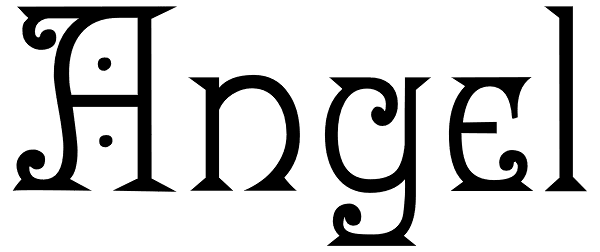
Angel
Victorian fonts are a delight to use, but many don¹t have a lowercase. Today, that doesn¹t cut it, so where practicable, we design a harmonizing lowercase to extend the usefulness of the font.
Angel Font